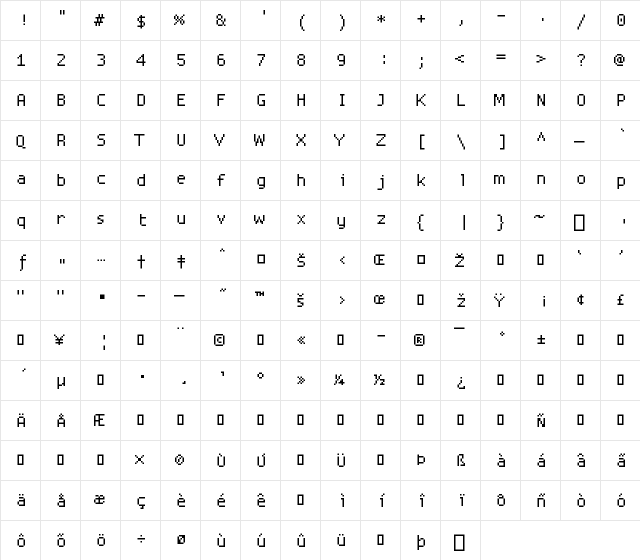
ProggySquareTT Regular
Design Context for ProggySquareTT Typeface
ProggySquareTT takes a measured approach to typography — its balanced proportions and neutral character make it a reliable workhorse for both digital and print work.
Pro Tip: Pair ProggySquareTT with a font of contrasting weight or personality to build a more expressive typographic hierarchy.